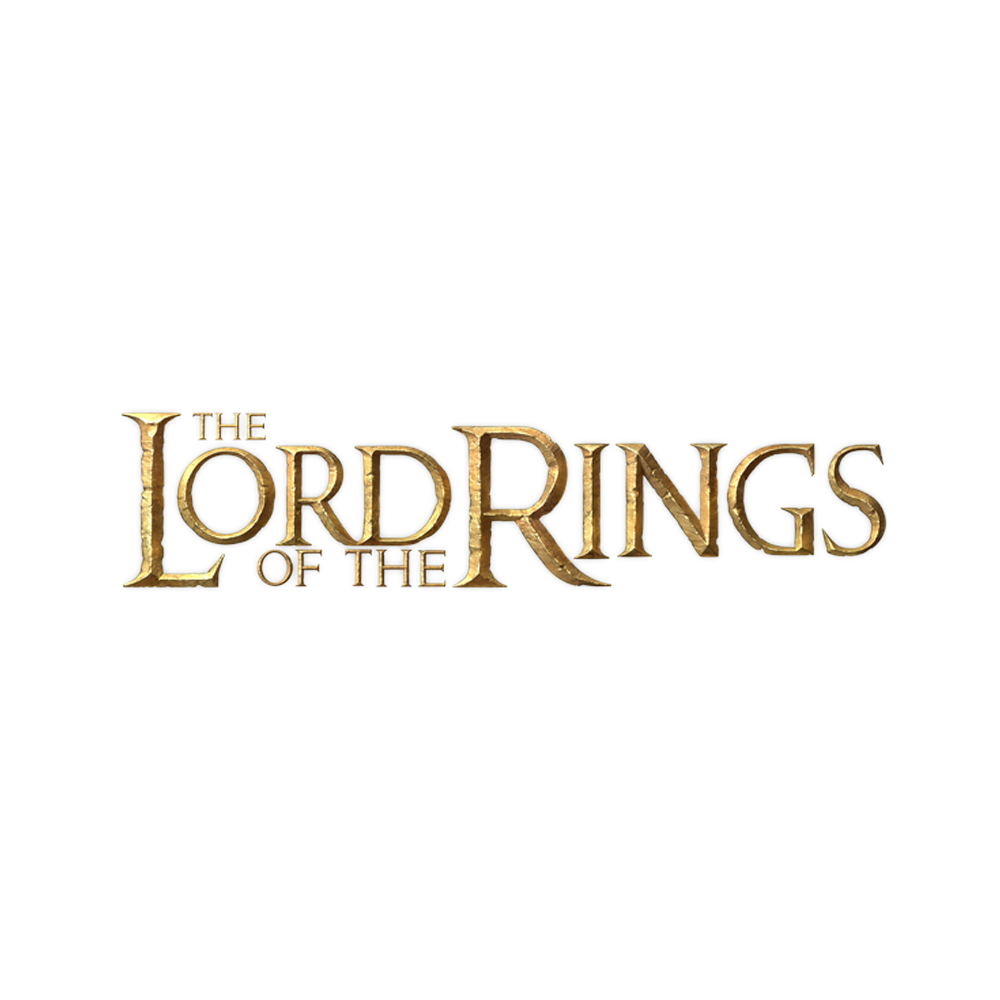
Lord of the Rings Font
AdventureThe Lord of the Rings (LOTR) is a fantasy tale by J.R.R. Tolkien about a hobbit's quest to destroy a powerful ring, facing challenges and the Dark Lord Sauron.
The font used in the LOTR movie cover was custom made but replicated as Ringbearer by Pete Klassen. The font is free for personal use.